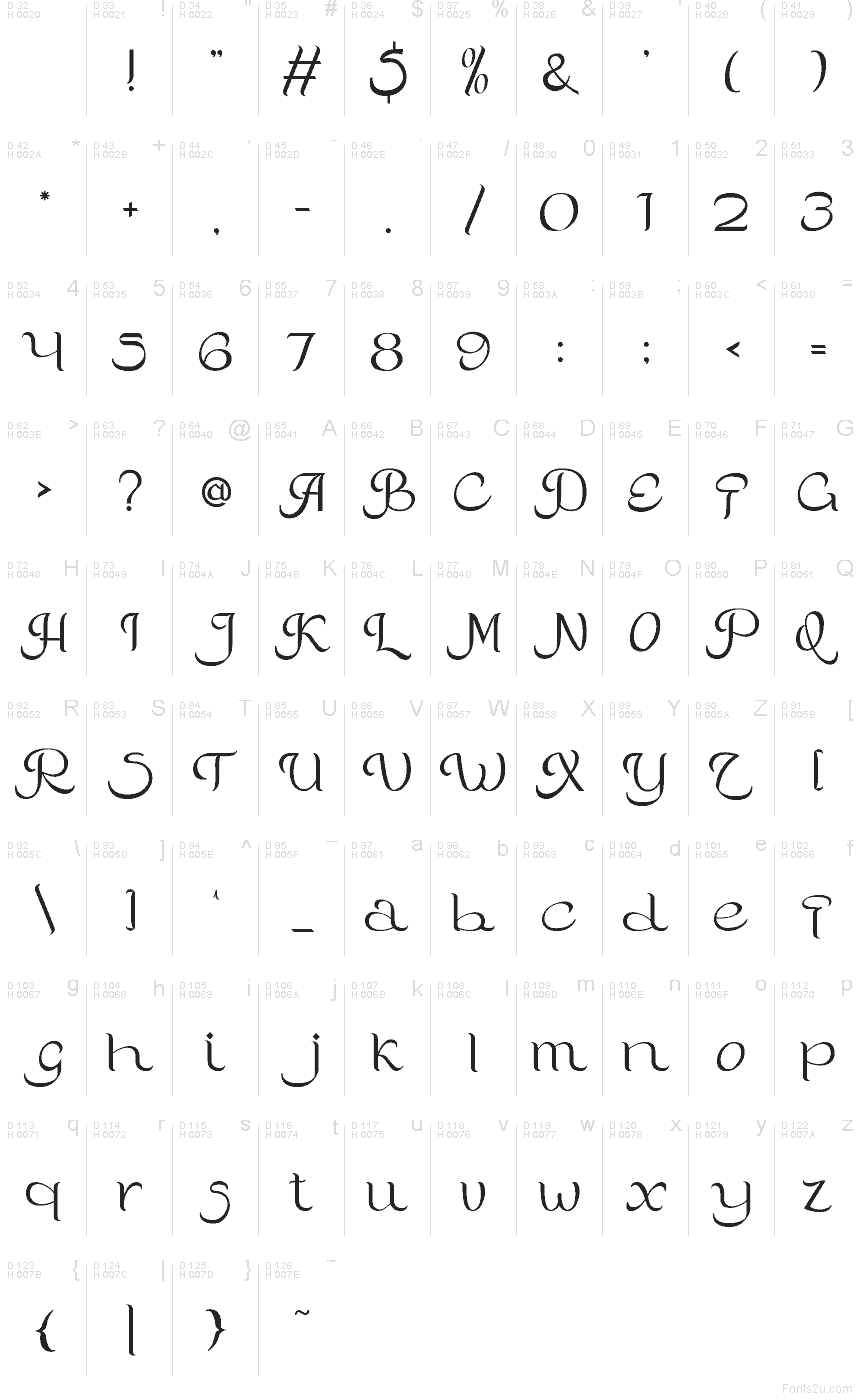
Nadishaq
Nadishaq font by PutraCetol Studio is a free decorative faux Arabic typeface that instantly brings a Middle Eastern-inspired mood to Latin text. Its letters flow in long, looping curves with delicate hooks and subtle swings, like a stylized calligraphy line drawn in wet ink. The rhythm feels both elegant and a little whimsical, giving headlines a theatrical, storybook quality without becoming hard to read.
Using Nadishaq, you can add an exotic flair to restaurant menus, hookah lounge logos, festival posters, travel brochures, packaging, and themed event invitations. This free font shines when set large, letting the graceful curves and extended strokes breathe. For supporting copy, pair Nadishaq with a clean, modern sans serif so the ornate letterforms stay in the spotlight.